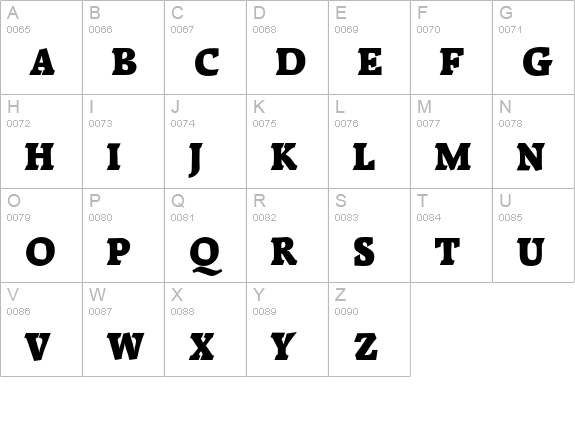
RaleighEF-Heavy is a heavy, high-impact variant in the RaleighEF typeface family \xE2\x80\x94 well suited to high-impact headlines, posters, and display advertising.
RaleighEF-Heavy is a powerful and bold font that exudes strength and confidence. Its thick and sturdy letterforms make a statement, demanding attention and leaving a lasting impression. This font is perfect for headlines, titles, and any design project that requires a touch of boldness. What sets RaleighEF-Heavy apart is not just its striking appearance, but also the fact that it is freely available to download at FontsMarket.com. This means that designers, creatives, and typography enthusiasts can easily access this remarkable font without any cost or hassle. Whether you're working on a personal project or a professional endeavor, RaleighEF-Heavy is there to enhance your work with its impactful presence. The versatility of RaleighEF-Heavy allows it to be used in various design applications. From print materials like posters, brochures, and book covers to digital projects such as websites, banners, and social media graphics, this font adapts effortlessly to any medium. Its clean and crisp lines ensure legibility, even at smaller sizes, making it suitable for body text as well. With RaleighEF-Heavy, the possibilities are endless. Let your creativity flow and explore the countless ways you can use this free font to elevate your designs. Whether you're aiming for a modern and edgy look or a classic and timeless feel, this font has got you covered. So, don't miss out on the opportunity to enhance your design toolbox with the bold and captivating RaleighEF-Heavy font. Head over to FontsMarket.com and freely download this exceptional typeface today. Start creating impactful designs that leave a lasting impression and make your message stand out with RaleighEF-Heavy.